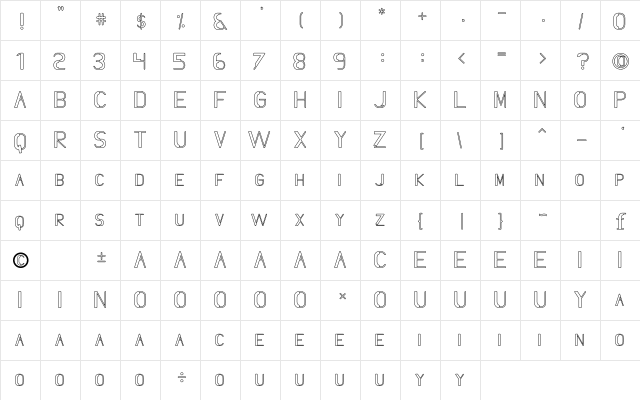
Slang Outfit Outline
| Foundry | Edric Studio |
| Designer | Renata & Sarah Suci P |
Design Context for Slang Outfit Typeface
Slang Outfit brings ornamental detail and strong personality to headlines and identities, where visual impact matters more than quiet functionality.
Font Pairing: Pair with a clean neutral sans-serif for body copy to let Slang Outfit's character lead without overwhelming the composition.
Pro Tip: Treat Slang Outfit as the centrepiece of your typographic hierarchy. One strong heading set in a decorative face can carry an entire layout.